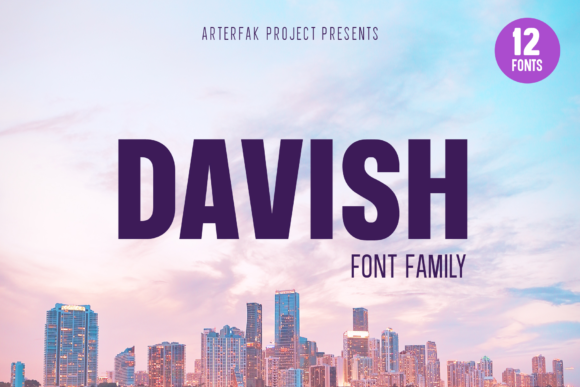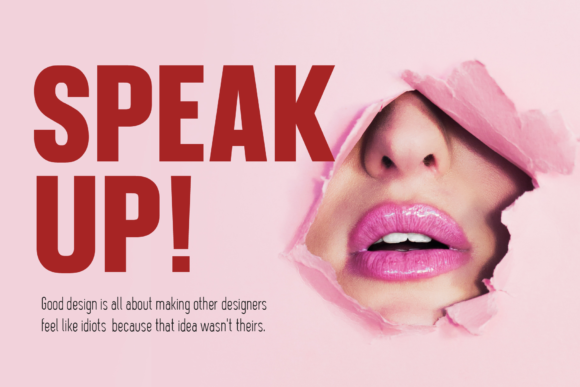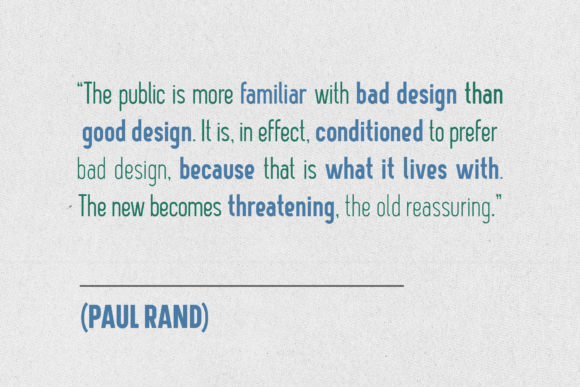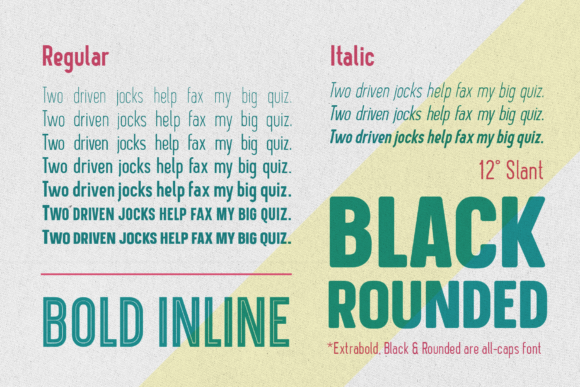
Davish Family Font
About the Davish Family Font
Explore the possibilities with Davish Family Font, a font that offers both beauty and functionality. The Davish is an amazing minimalist sans serif family. It was carefully designed based on condense height and expanded in 7 weights and 5 styles; thin, light, normal, medium & bold styles are recommended for editorial design such as headlines, sub-headlines, body copy, footnotes, document layouts, and much more.
The other included styles are bold-inline, extra-bold, black & black rounded, which are also good for a posters, brochures, magazines, branding projects, motion graphics, infographics, app designs, and more!
Davish Family Font Usage Examples
Davish Family Font Example